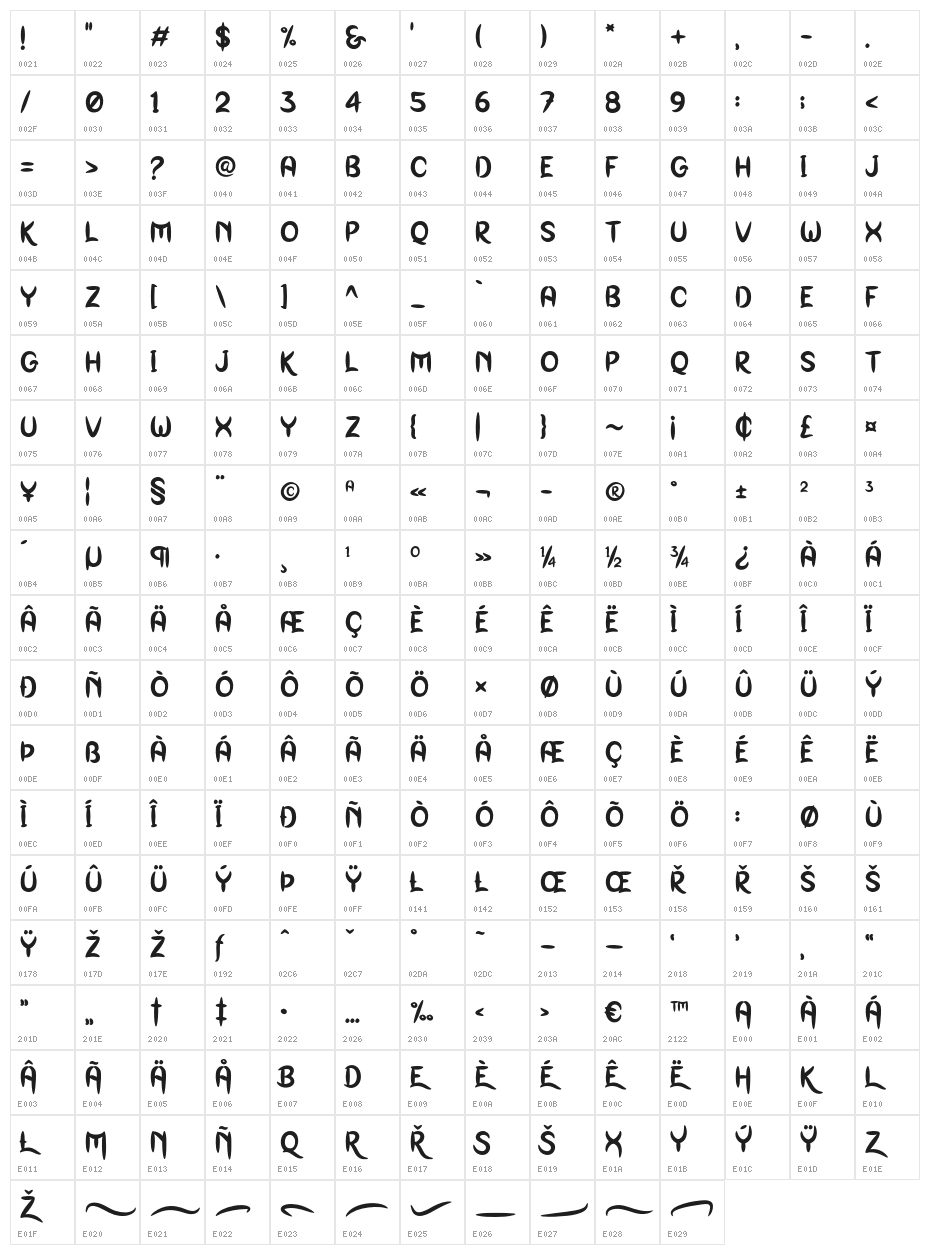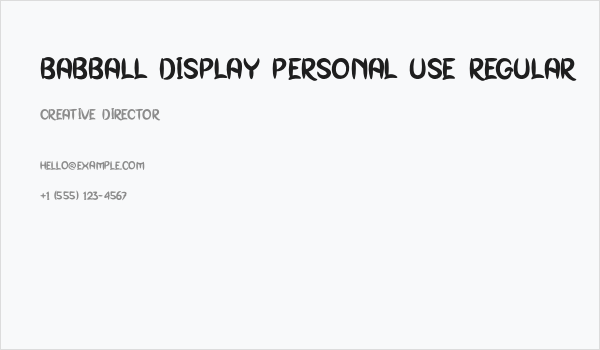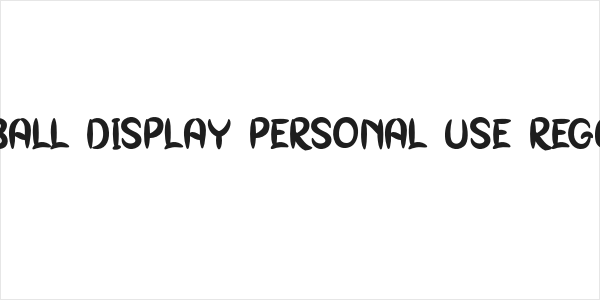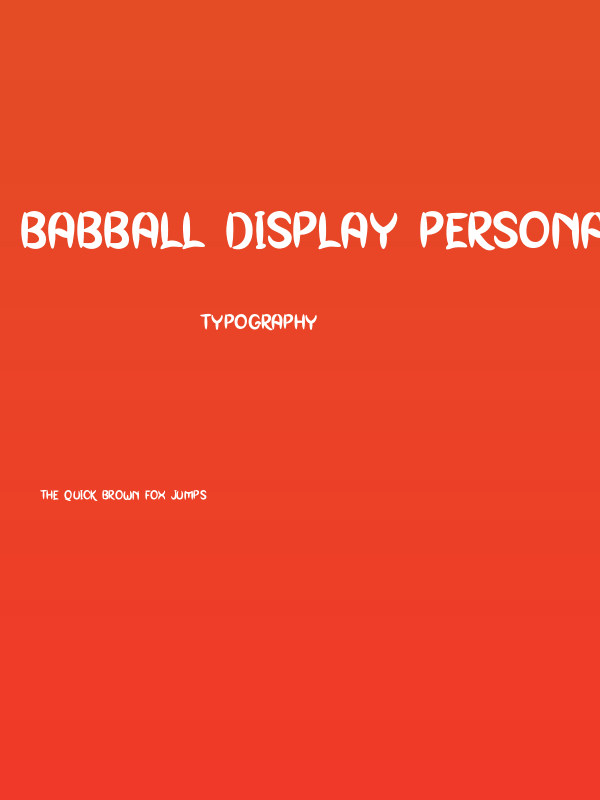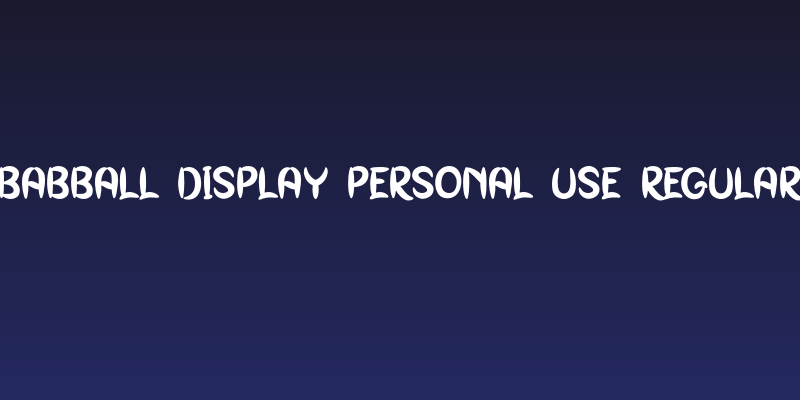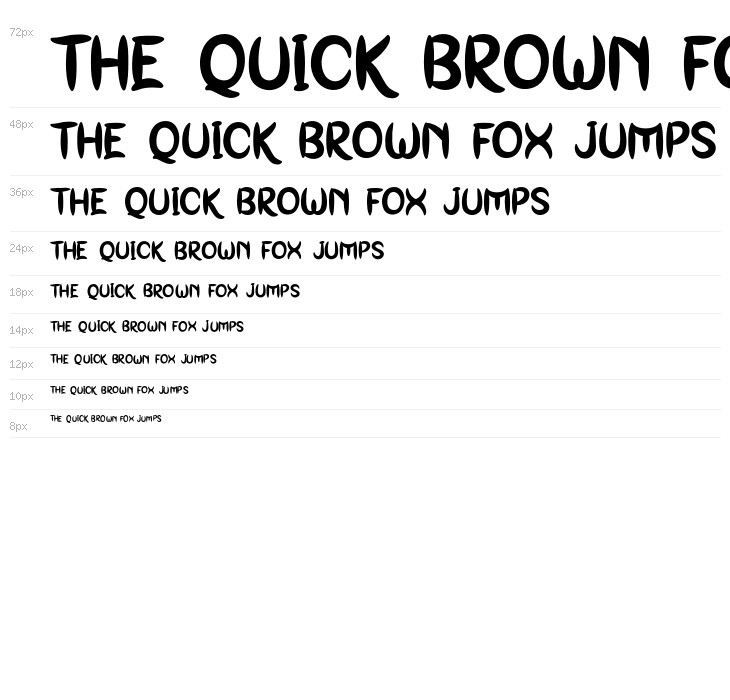
Babball Display Personal Use Regular Font
Babball Display Personal Use Regular Description
This font features a playful and bold design with a hand-drawn aesthetic. The characters are rounded and slightly irregular, giving them a whimsical and friendly appearance. The strokes are thick and consistent, providing a strong visual impact. The uppercase and lowercase letters maintain a cohesive style, while the numbers and special characters complement the overall look. This font is ideal for projects that require a fun and engaging typeface.
| Overall Style | Playful and Whimsical |
| Proposed Projects | Ideal for children's books, playful branding, posters, and creative invitations. |